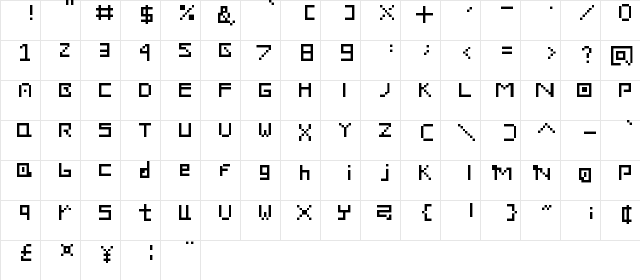
Carrera font Regular
| Designer | pablomhxc |
Design Context for Carrera font Typeface
Carrera font is a composed and adaptable typeface that performs quietly and consistently across a wide range of design contexts.